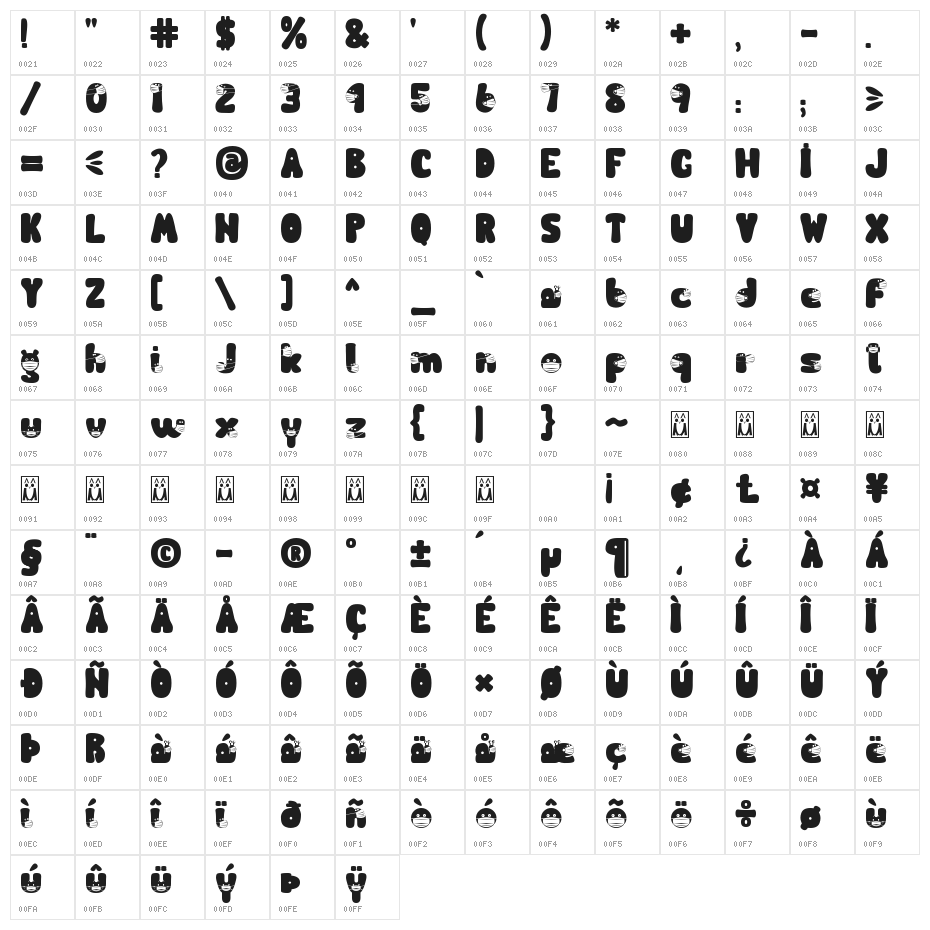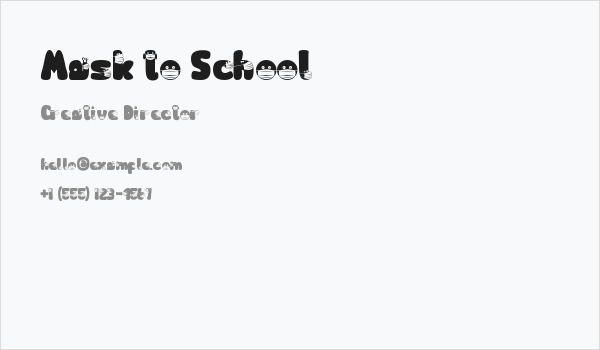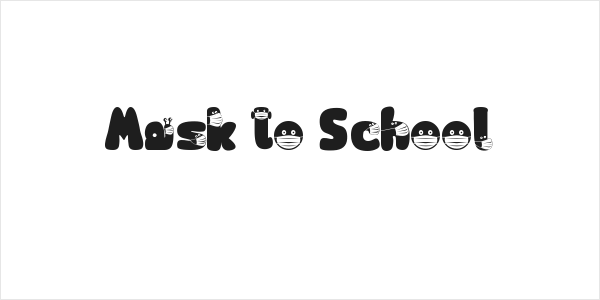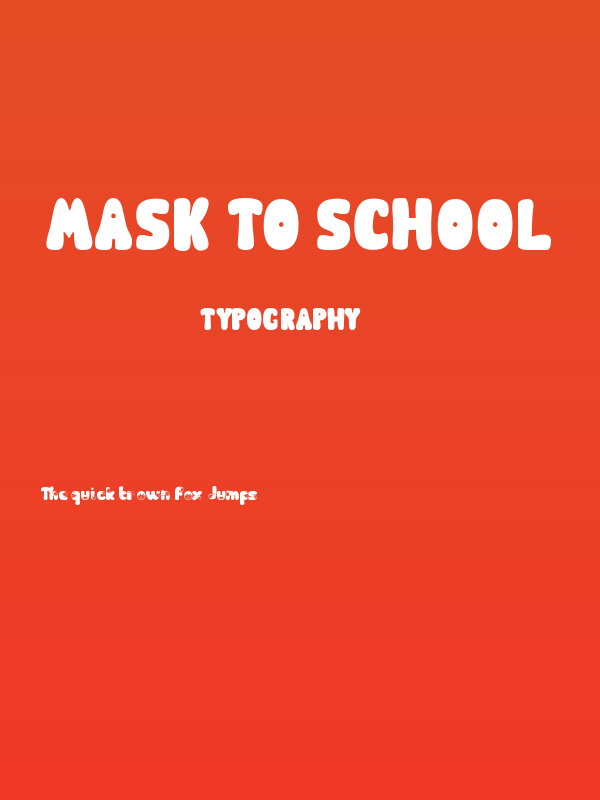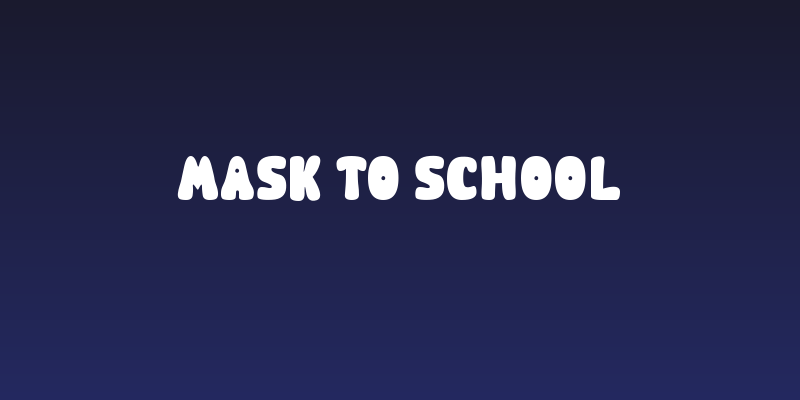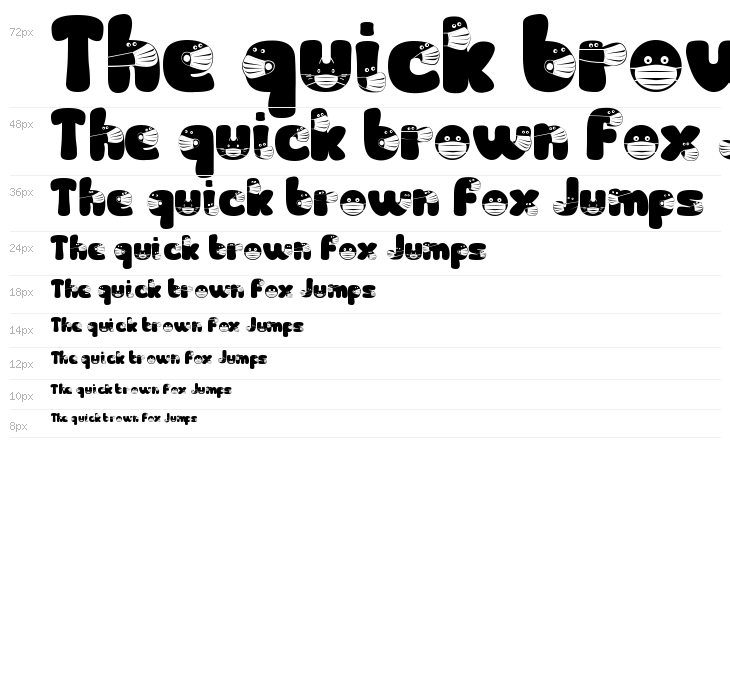
Mask to School Font
This playful and whimsical font features bold, rounded characters with a unique twist. Each letter and number is adorned with a small, cartoonish face or mask, adding a fun and quirky element to the design. The characters are thick and uniform in weight, creating a cohesive and visually striking appearance. The playful nature of the font makes it ideal for projects aimed at children or for creating a lighthearted and humorous tone. The special characters maintain the same bold and rounded style, ensuring consistency throughout the font.
Overall StylePlayful
Proposed ProjectsIdeal for children's books, playful branding, party invitations, and educational materials.